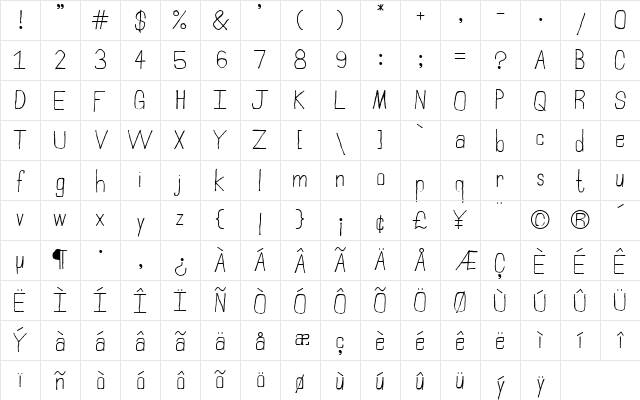
Northampton Regular
Northampton Family
Design Context for Northampton
Northampton is a composed and adaptable typeface that performs quietly and consistently across a wide range of design contexts.